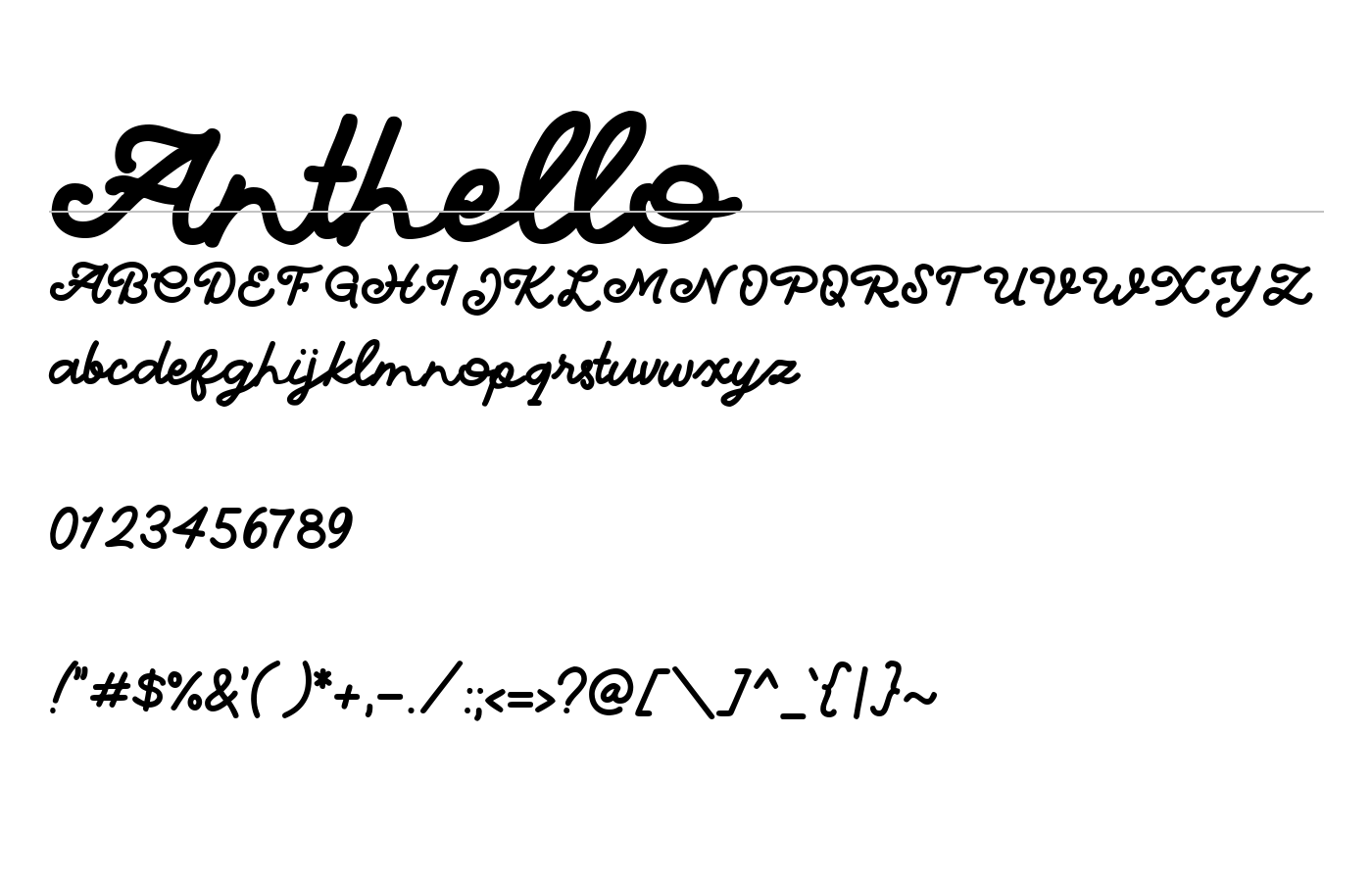
Anthello is a lively and elegant script font with smooth, flowing curves and a friendly, handwritten feel. Its consistent medium weight and clear letterforms make it perfect for invitations, branding, and creative projects that seek a warm, personal touch. The playful yet refined style works well in both display headlines and smaller text, adding charm and character wherever used.
Anthello Font
About Anthello Font
| Font family | Anthello Font |